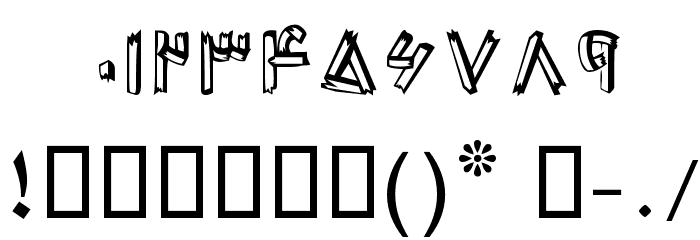
Wood III Font
Wood III Description
This font features a highly decorative and artistic style, with each character exhibiting unique and intricate designs. The numbers are particularly stylized, resembling a blend of geometric and abstract forms, which gives them a distinct and eye-catching appearance. The special characters also follow this artistic theme, adding to the overall visual interest. The font's bold and creative design makes it suitable for projects that require a strong visual impact and a touch of artistic flair.
An artistic and decorative font with unique, stylized characters from Uncategorized fonts.
- Proposed Projects: Ideal for creative projects such as posters, album covers, or branding that seeks a bold and artistic statement.
- Use Case: Logos, Posters, Artistic Designs